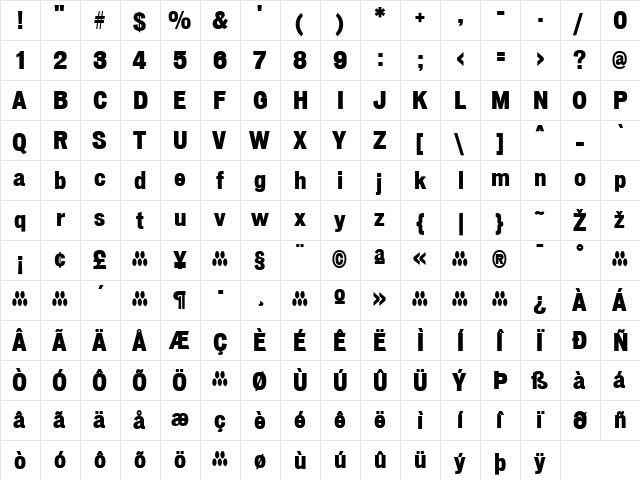
Vonnes Regular
Design Context for Vonnes Typeface
Vonnes takes a measured approach to typography — its balanced proportions and neutral character make it a reliable workhorse for both digital and print work.